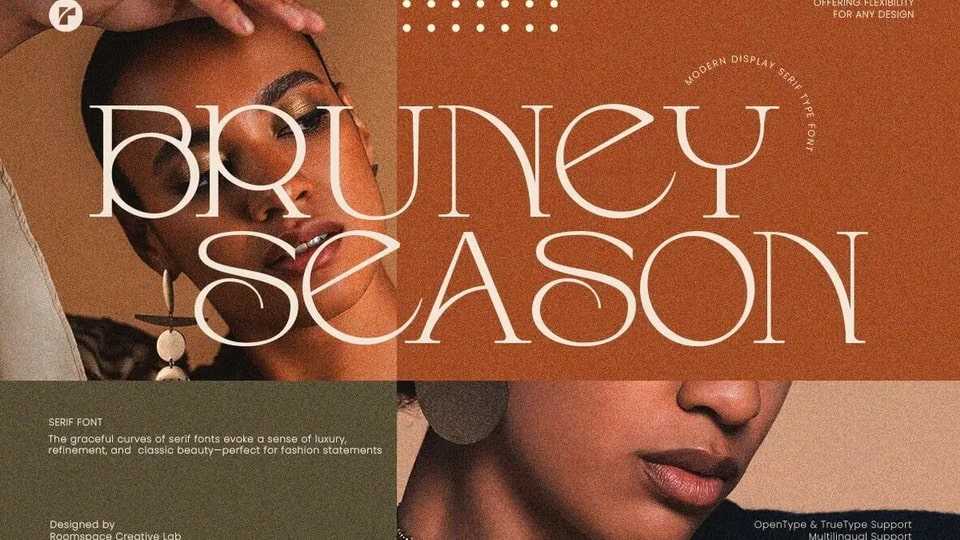
Download Bruney Season font, a stunning serif display typeface that combines timeless elegance with a modern aesthetic. Designed to captivate, this font showcases graceful curves and unique letterforms